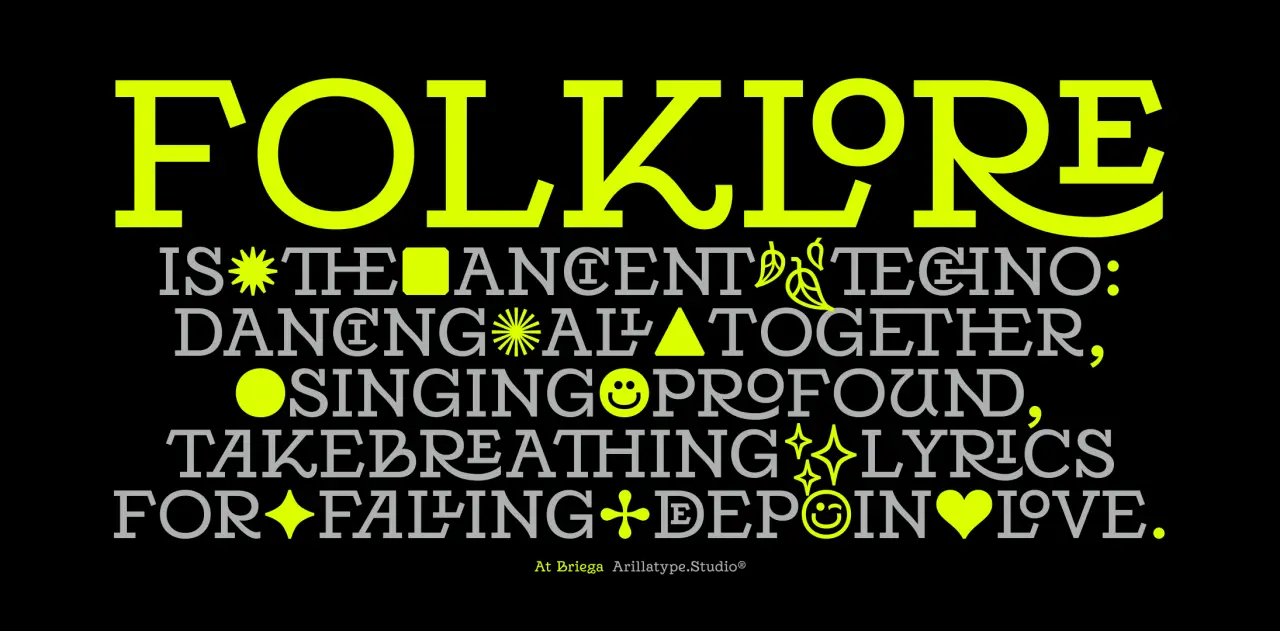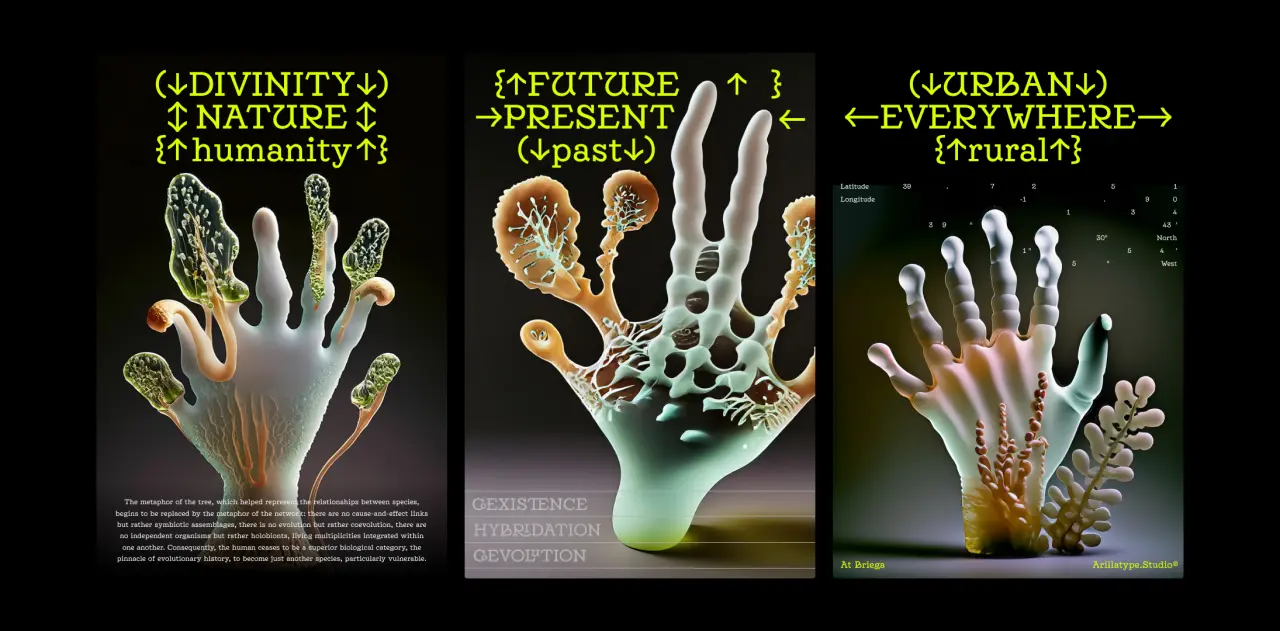
In this article, we'll get you started with a plethora of captivating new typefaces. That's not to say there's anything wrong with sticking to the same old reliable workhorses; indeed, our Top 50 fonts of 2024 lists many old favourites along with new releases. But it's always good to see what fresh typeface designs are out there, and who knows? One of them may become your favourite go-to in the future.
From whimsical scripts to bold serifs, this season's offerings promise to inject new life into your design projects. So, let's delve into our curated selection of 11 remarkable typefaces poised to invigorate your designs and spark joy in your audiences.
1. Zanco by In-House International
We're big fans of In-House International, a branding studio based in Austin, Texas, with team members worldwide. Indeed, we featured their Brinca typeface in our 2024 Top 50. So we were intrigued to learn that right now, they're shifting their focus to 'climate branding', i.e., design work that influences behaviours, policy and technology changes. And as part of that shift, they have a new typeface on the block.
Standing tall and narrow, Zanco features stressed curves, softened internal angles and an unconventional weight distribution that nonetheless seems to fall just right. It goes from lanky to heavy, thickening shadows filling in the bottom halves, which works especially well on interlocking descenders.
Designed by Alexander Wright and developed by Rodrigo Fuenzalida, the typeface is named, co-founder Michu Benaim Steiner explains, "after its long, stilt-like limbs; the zancos worn by acrobats towering above joyful crowds. Across the full family, characters stand tall in a range of styles, from heavy-footed and funky platforms to slim lifts that lend it an ethereal, art nouveau vibe. The effect is curved, melty, and a little nostalgic. You get the relaxed, versatile, legible, sensuous and useful, all in one."
In short, this is a fun typeface that's light years away from the seriousness we were expecting. "We wanted to bring this good-time type to the climate space," explains Michu. "With samples built around a made-up climate conference, we imagined the usual swag and public-space banners replaced with PSAs that could stick around long after irreverent graphics made with delight. Changes are needed to mitigate catastrophe, but we can embrace action and alignment with joyful determination."
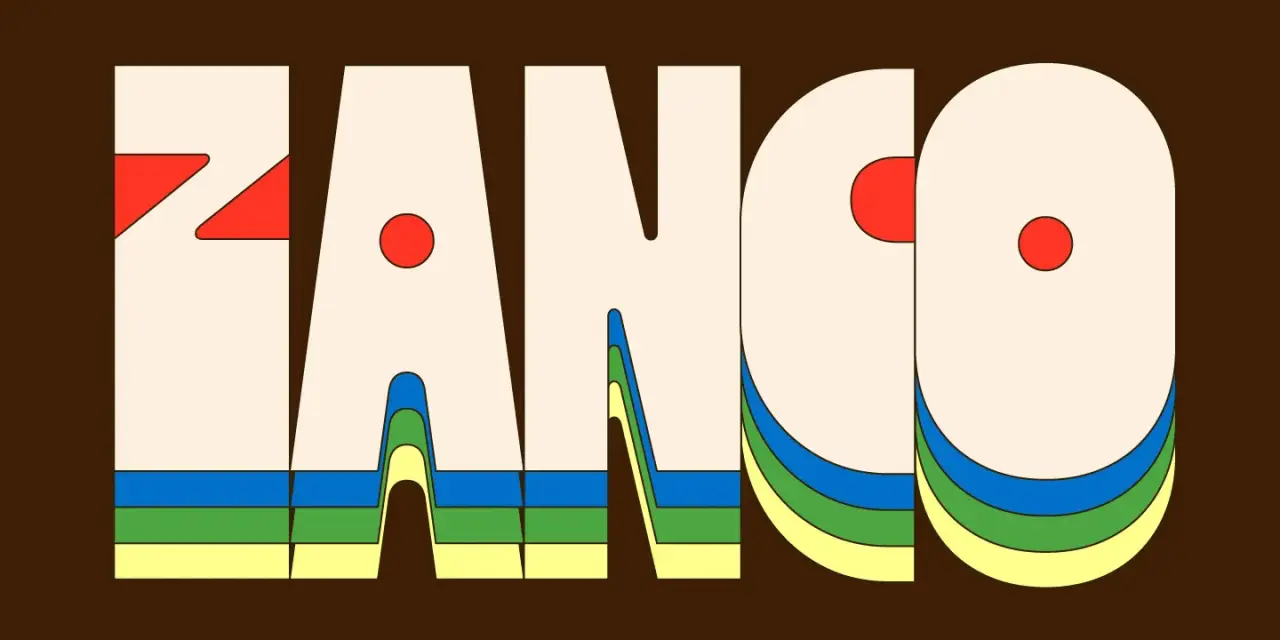
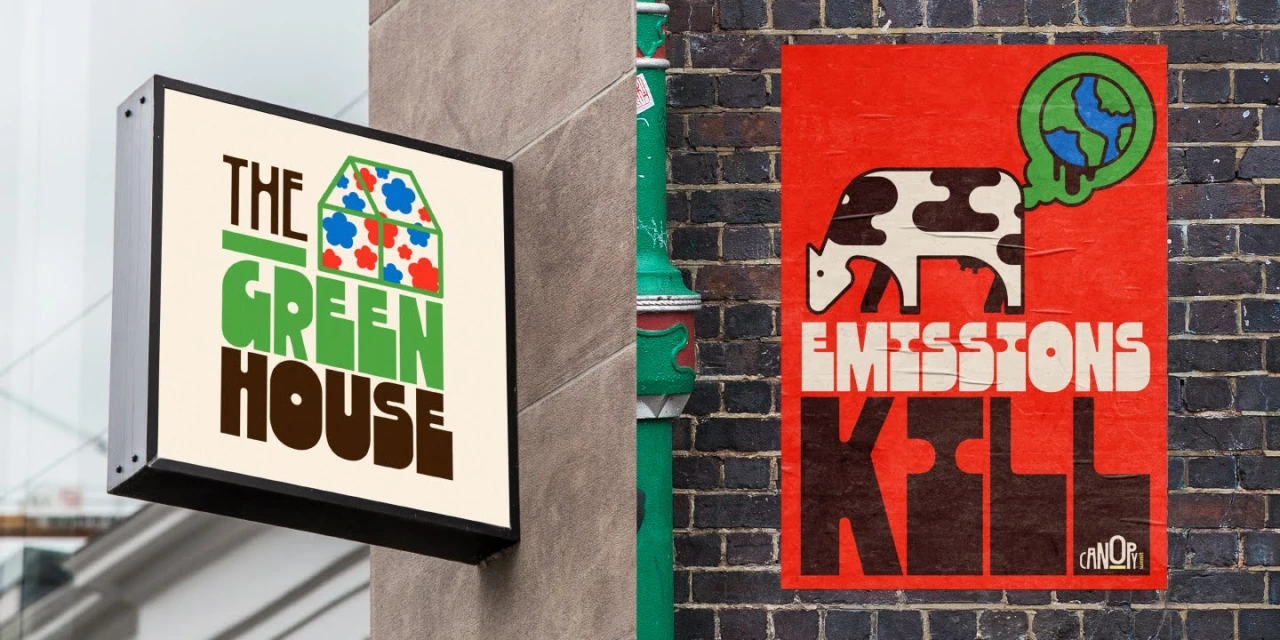
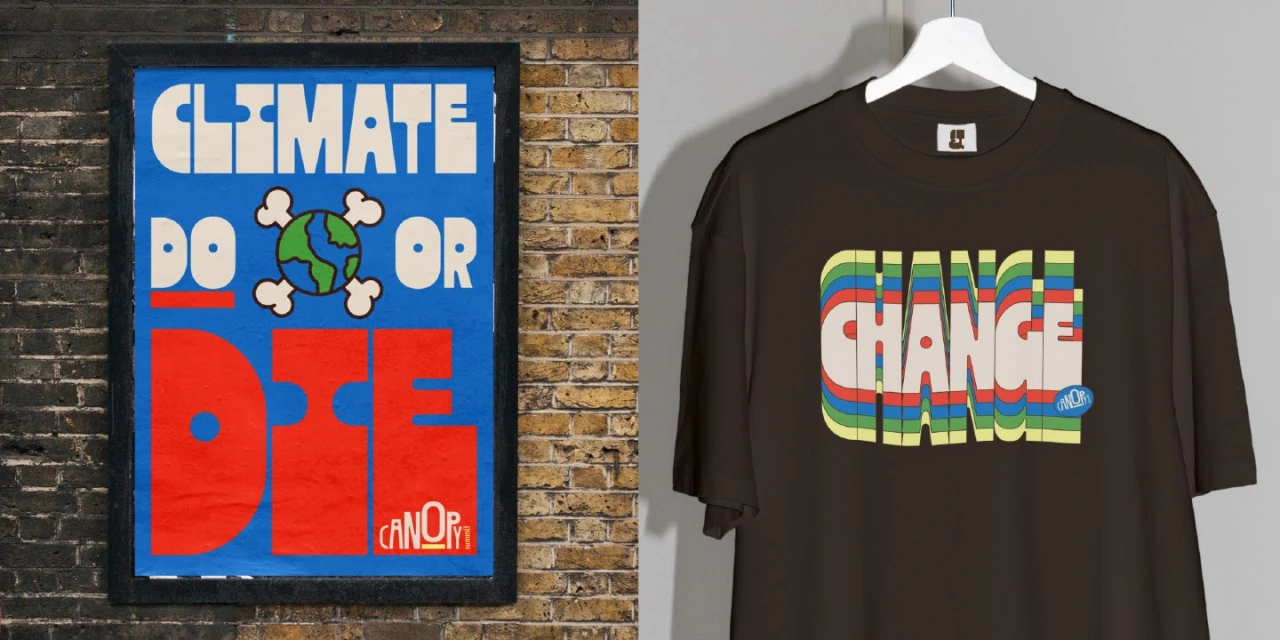
2. Seabirds by Rosalie Wagner
Designed by Berlin-based type designer Rosalie Wagner, Seabirds is a homage to the historical legacy of lineals. In other words, it combines different sub-genres of sans-serif within a single typeface, allowing you to navigate between geometric and humanistic shapes while maintaining overall coherence.
Its design was inspired by book covers from the first half of the 20th century, particularly those crafted in the 1930s for the renowned publisher Albatross. These featured new and "modern" sans-serifs, most probably contributing to their worldwide popularity.
The default set is predominantly geometrical, while the use of OpenType stylistic sets enables a transition from orthogonal to flat terminals, guiding the design to a more humanistic style.
The uppercases maintain proportions reminiscent of classic Roman capitals, while revisions to the lowercases have been made to achieve a more balanced and cohesive rhythm. The ratio between ascender height and x-height is deliberately generous to ensure convincing legibility in body text.
3. Module by A-Studio and Co
Freelance senior brand designer Alan Cheetham describes Module as "the result and fluke side hustle from the 9th edition of the 36 Days of Type challenge that I took part in 2022".
This uppercase, monospaced display font was inspired by the aesthetics found in everyday simple geometric forms. Composed on a strict uniform grid system from a combination of sharp edges, bold curves and signature circular cuts, each character has been uniquely designed to offer as much visual impact in its solidarity as well as when used in its collective state.
In short, Module is a distinctive contemporary display font that's suitable for both digital and print-based projects that you want to stand out.
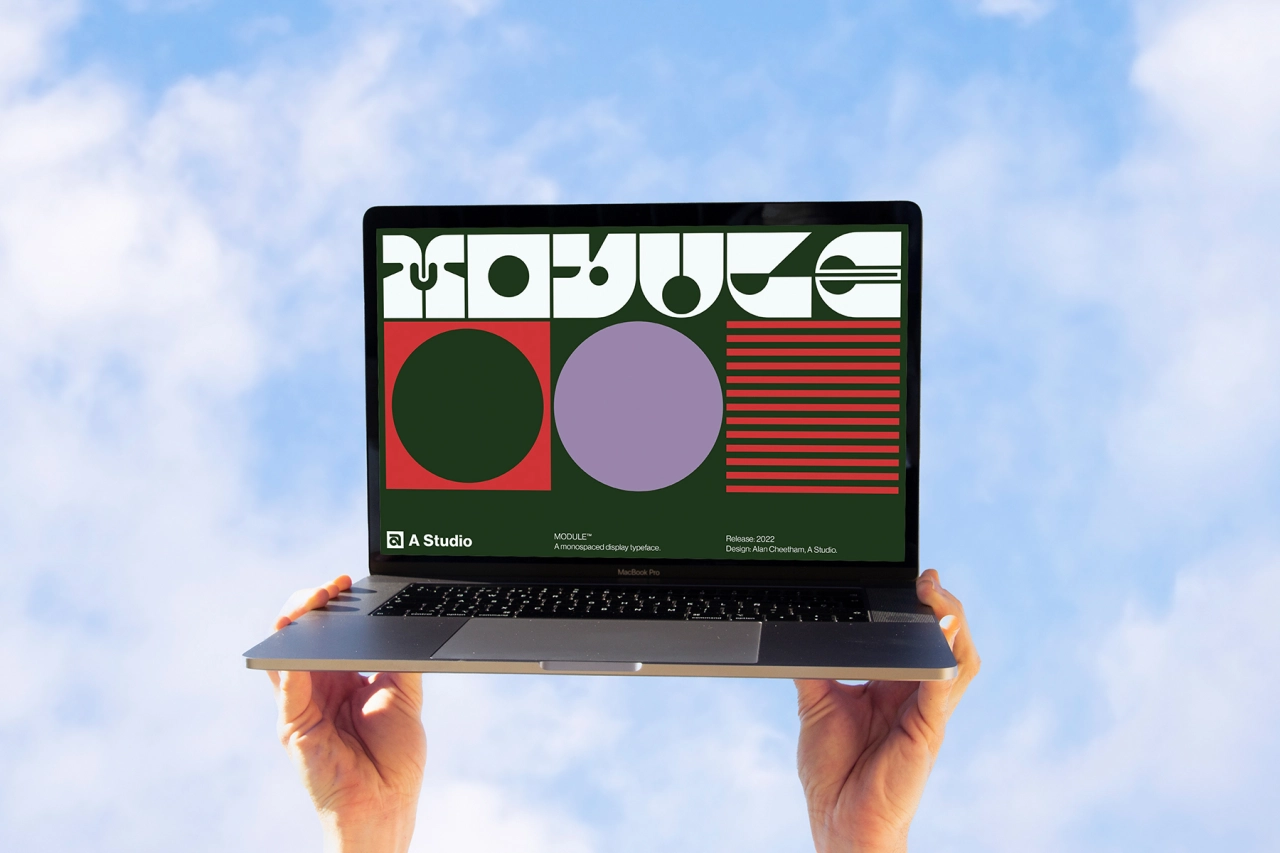
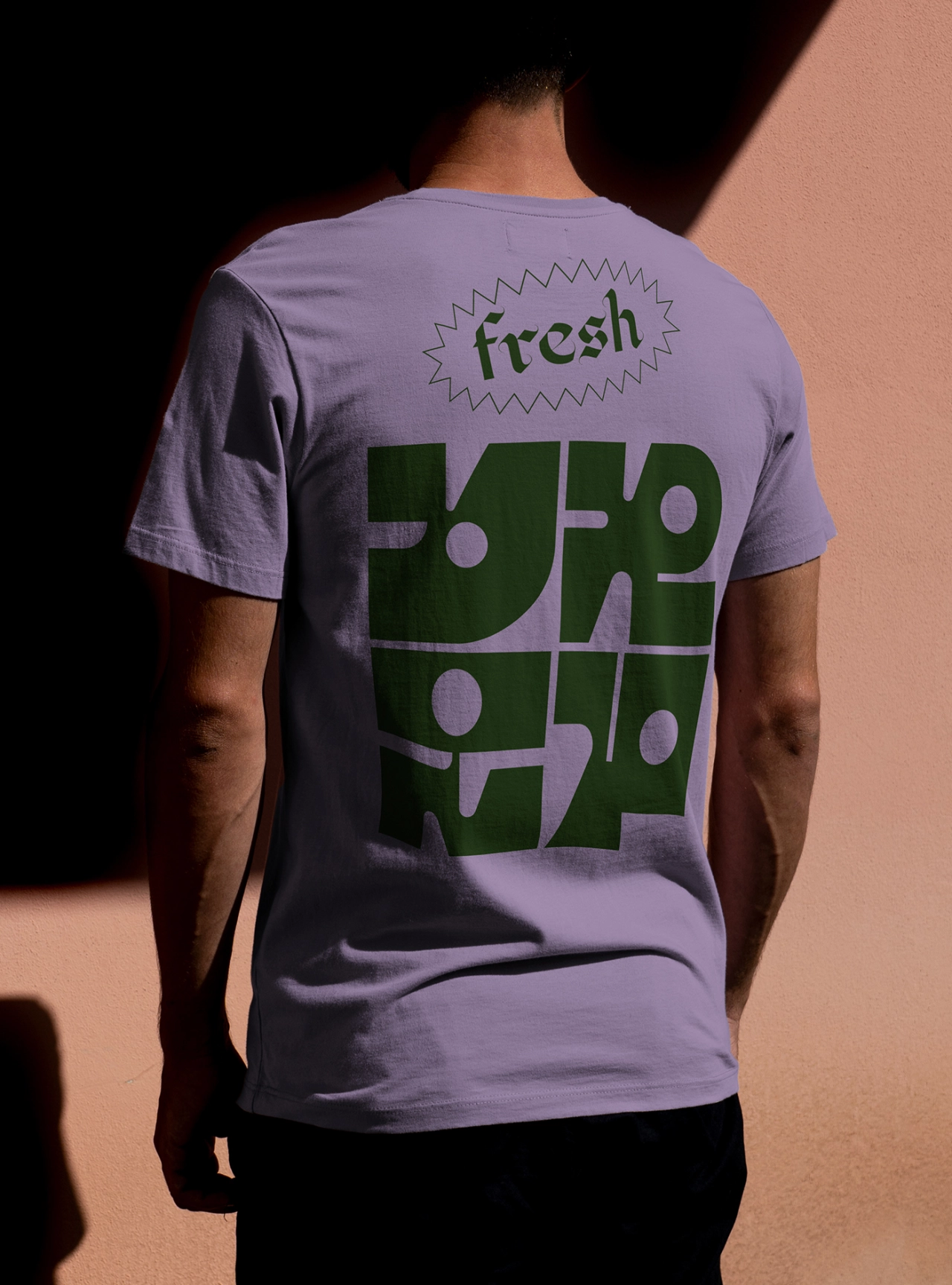
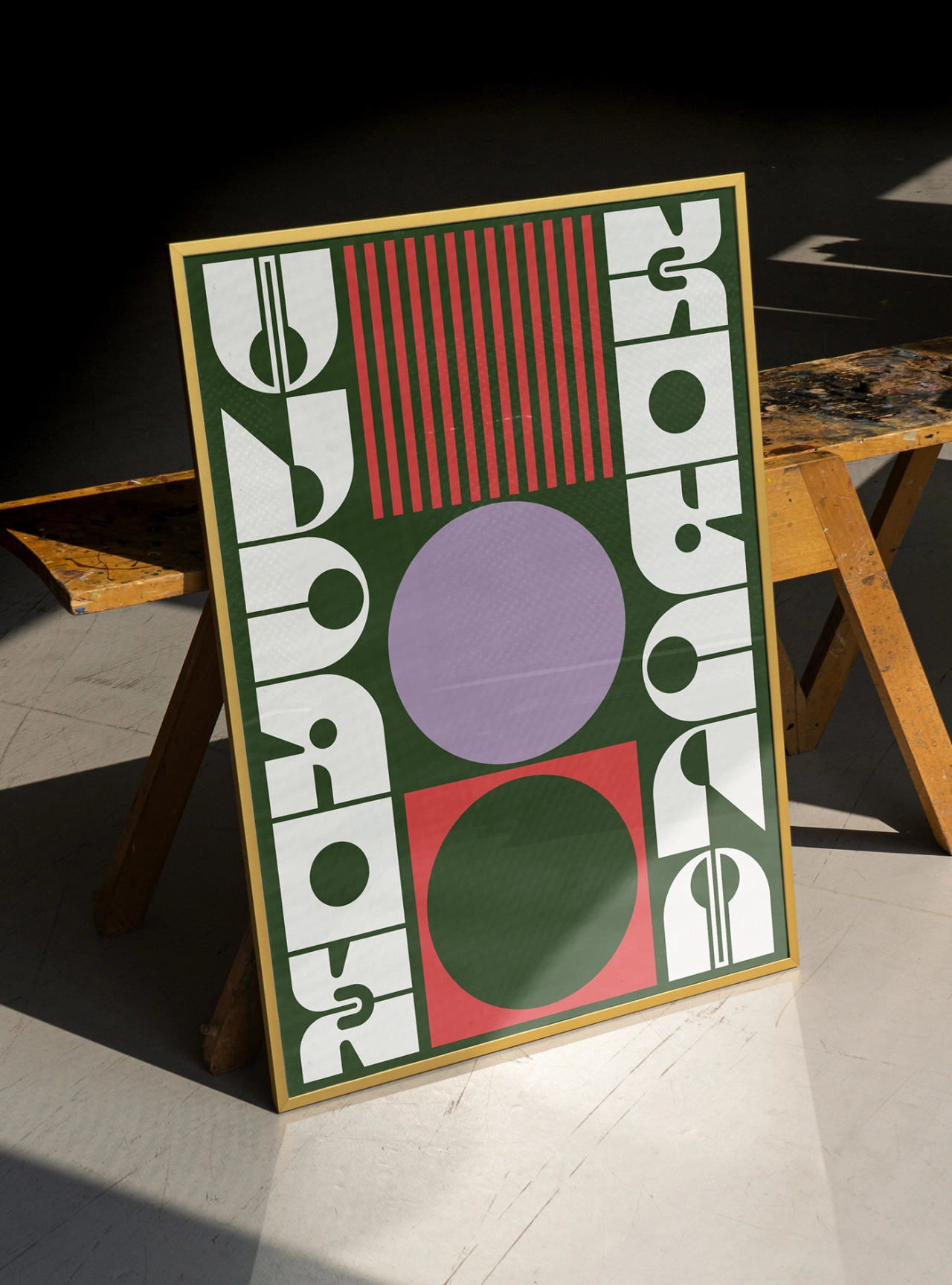
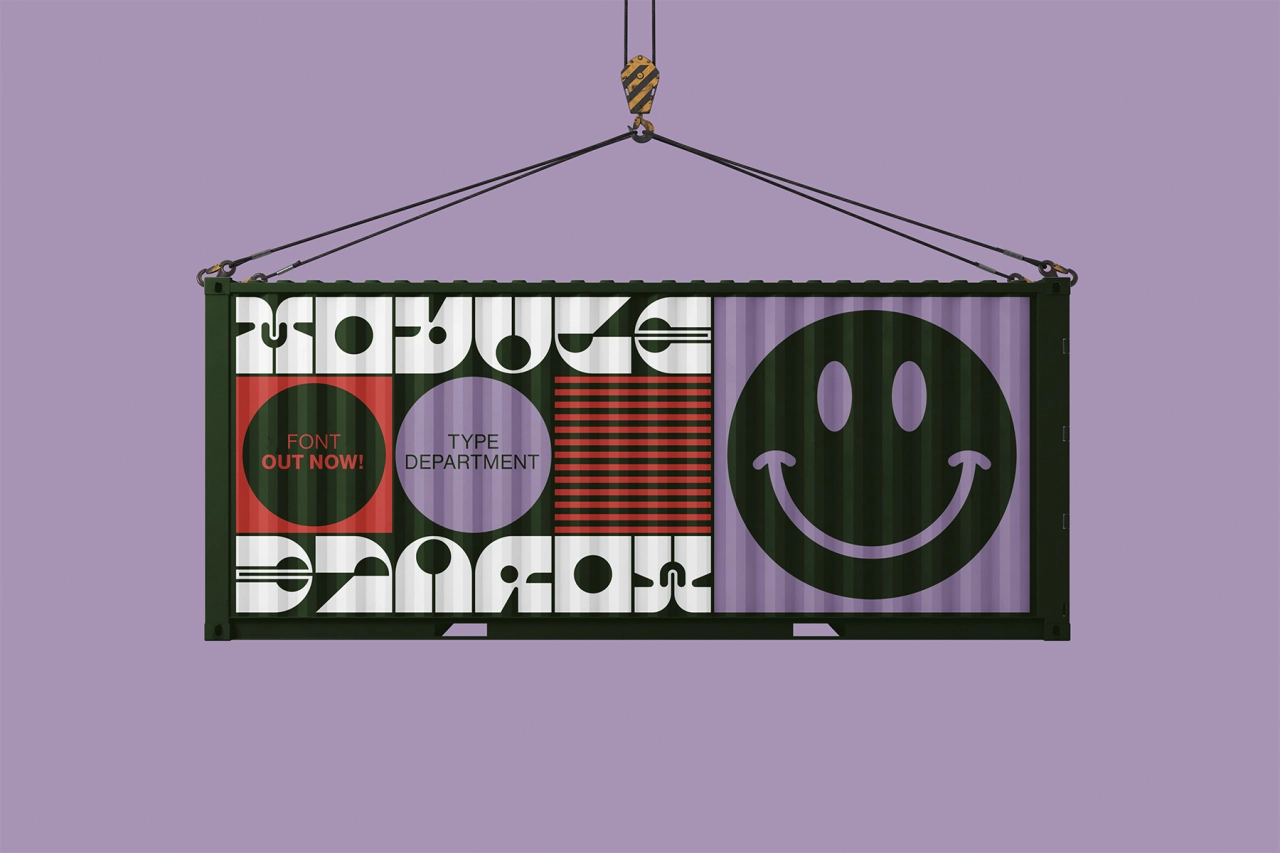
4. At Briega by Arillatype.Studio
Arillatype.Studio is a design studio based in Málaga with a passion for typography and exploring the intersection of creativity, craft and technology. Their latest font release, At Briega, was originally conceived as a revival of Charles Robert Ashbee's "Endeavour" typeface from 1901. But it then went in a different direction, inspired by the concept of hybridisation.
While playfully ambiguous, the characters of Orca, Minke and Beluga consistently serve the linguistic signs for which they stand, balancing their vibrant personalities with easy readability and elegant geometric form.